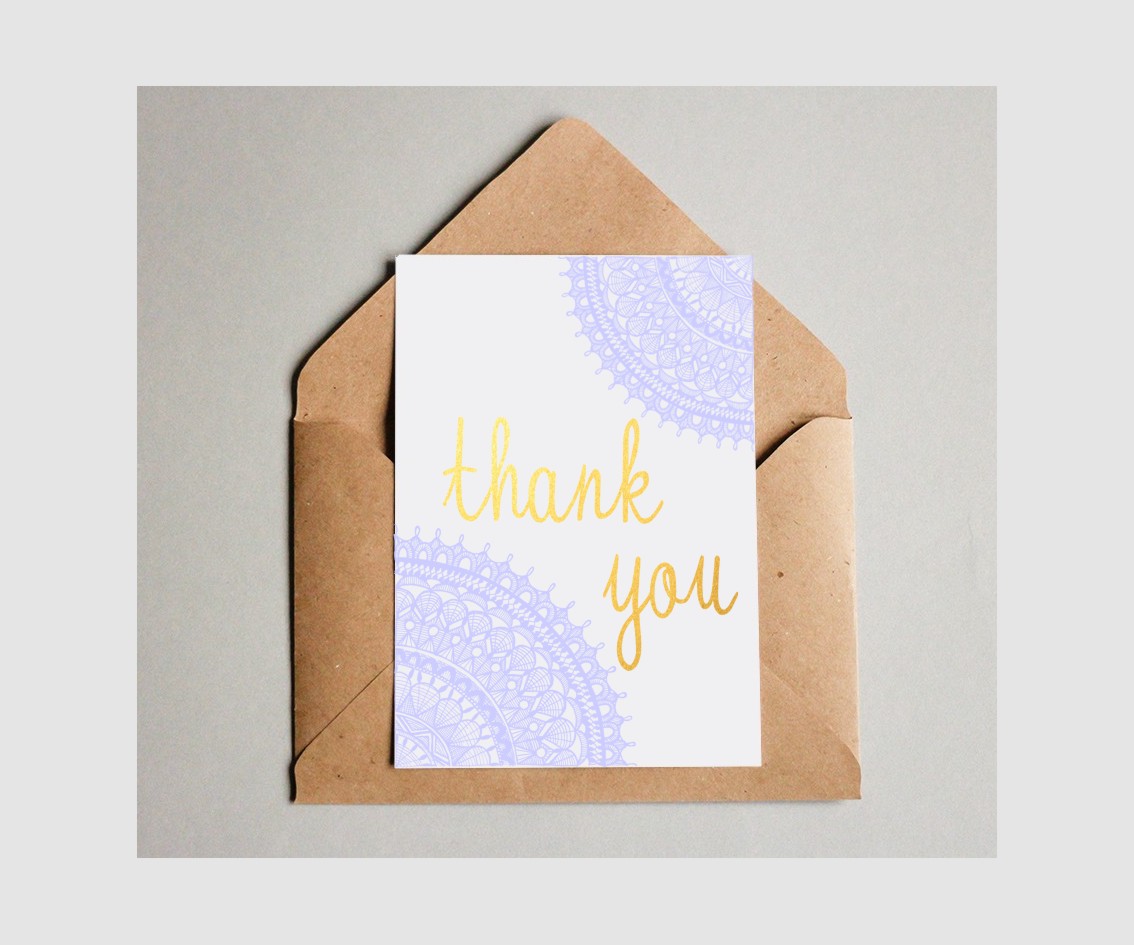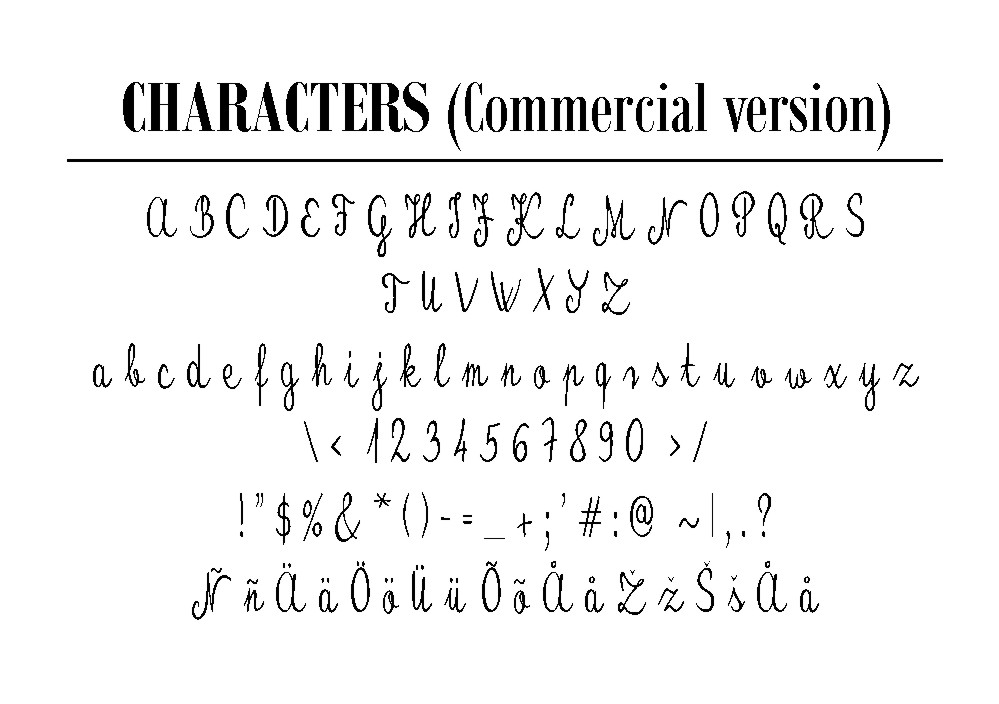
Introduction to Kristaly Font
Have you ever found yourself in the middle of a creative project, staring at a blank page, and suddenly, an idea strikes? That’s exactly what happens when you need the perfect font to elevate your design. For designers, the right font can be the difference between a good project and a great one. In this article, we’ll explore the Kristaly Font, a beautiful, neat handwritten font created by Eva Barabasne Olasz.
What makes Kristaly Font so special is its unique blend of elegance and approachability. With its free download option, designers can easily incorporate this high-quality font into their creative projects. Whether you’re working on a branding project or a personal design piece, Kristaly Font’s transparent background allows for seamless integration with your design.
In this article, we’ll dive deeper into the world of Kristaly Font, exploring its features, benefits, and how it can be used to take your design projects to the next level.
Key Features of Kristaly Font
- High-quality, elegant font design ideal for creative projects and design resources.
- Features a transparent background, making it easy to layer and customize in design software.
- Includes a range of glyphs and characters, making it suitable for both personal and commercial use.
- Designed with a high resolution (up to 1024 x 1024 dpi) for crisp and clear text rendering.
- Perfect for use in logo design, branding, and other creative applications where a sophisticated font is required.
Honest Review: Kristaly Font
I recently had the chance to work with the Kristaly Font, and I must say, it’s been a delightful experience. As a designer, I’m always on the lookout for high-quality design resources that can elevate my creative projects.
Here are some of the things that work well with the Kristaly Font:
- ✨ Its transparent background makes it super easy to integrate into any design, whether it’s for a logo, icon, or text-based project.
- ✨ The font’s sleek and modern aesthetic lends itself well to a wide range of creative applications, from digital design to print materials.
- ⚠️ The font’s customization options are somewhat limited, which may be a drawback for designers who like to experiment with different styles and effects.
- ⚠️ The font may not be suitable for certain types of projects that require a more rugged or distressed look.
Overall, I’m impressed with the Kristaly Font. Its high-quality design and versatility make it a valuable addition to any designer’s toolkit. While it may have some limitations, I think it’s well worth exploring for any creative project that requires a sleek and modern aesthetic.
Using Kristaly Font in Creative Projects
Getting the Most Out of Kristaly Font
To get the most out of Kristaly Font, experiment with different font sizes, colors, and combinations to create unique and eye-catching designs.
Kristaly Font is commonly used in:
- Logo design and branding.
- Graphic design and digital art.
- Print materials and marketing collateral.
Alternatives to Kristaly Font
Montserrat is a popular sans-serif font ideal for creative projects requiring a modern look. It’s available for free download and is suitable for a variety of design resources, including logos, brochures, and websites. Montserrat offers a transparent background, making it a great choice for designs with minimalistic backgrounds. Compared to Kristaly Font, Montserrat is more geometric and has a wider range of weights, making it a versatile choice for high-quality designs.
Open Sans is another highly versatile font that’s perfect for designers working on creative projects. It’s available for free download and features a clean, modern design that’s suitable for a wide range of design resources. Open Sans offers a transparent background and is available in a variety of weights, making it a great choice for high-quality designs. Compared to Kristaly Font, Open Sans is more straightforward and lacks the elegant feel, but it’s a great choice for designs that require a clear and readable font.